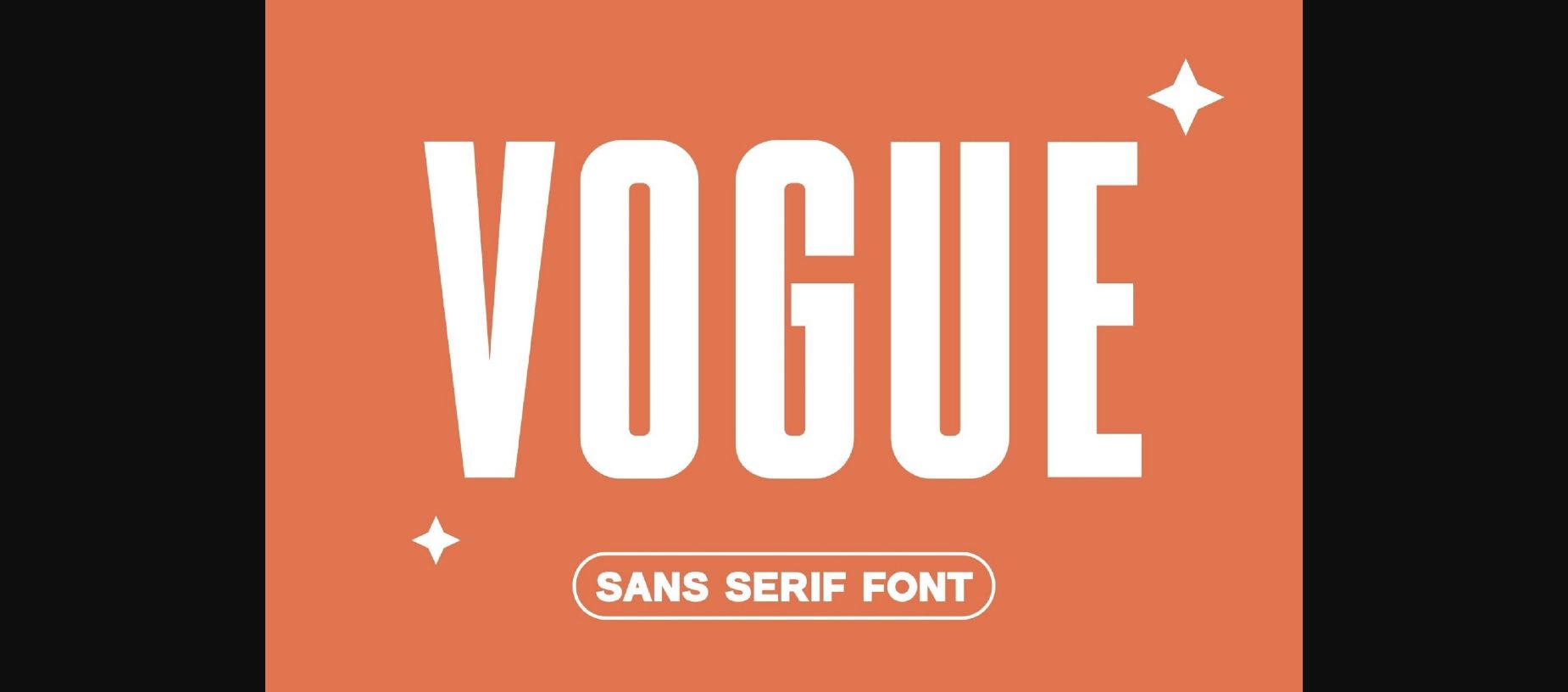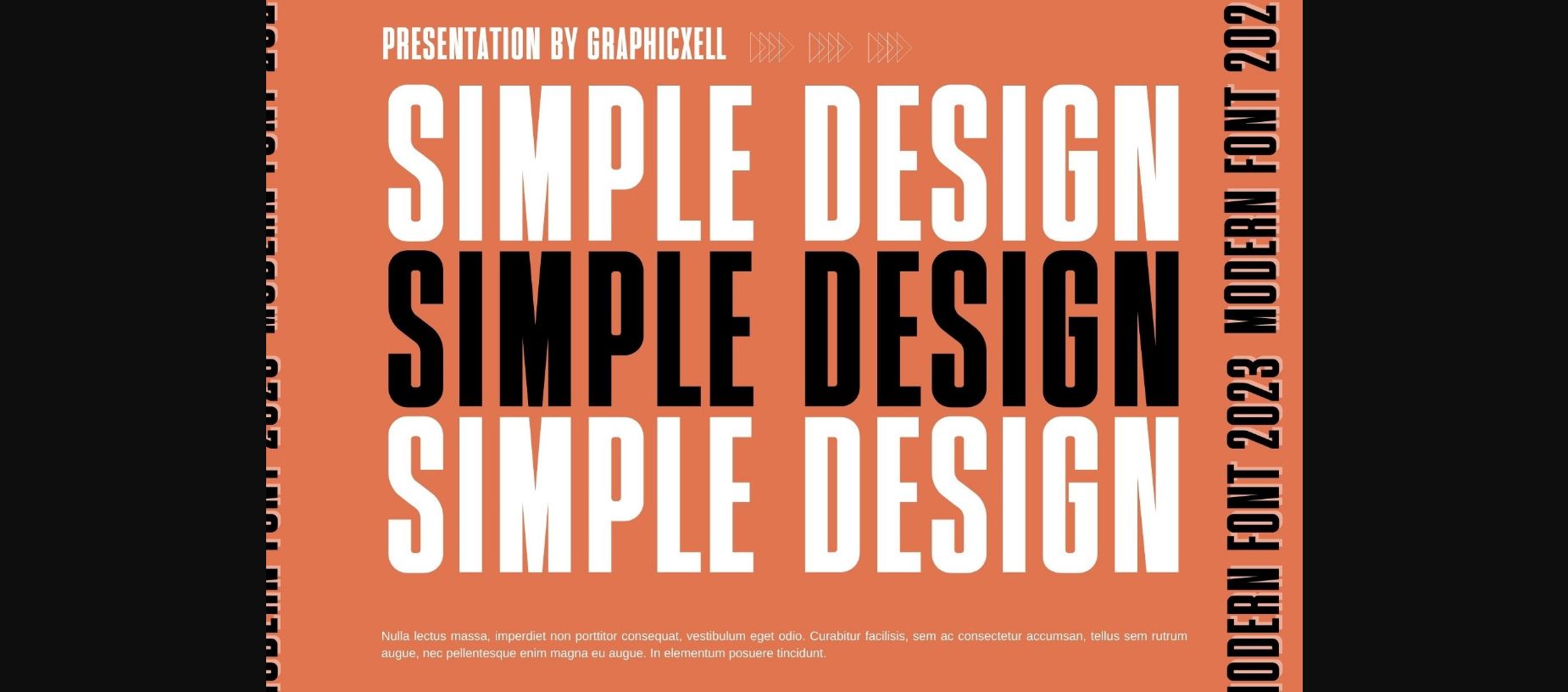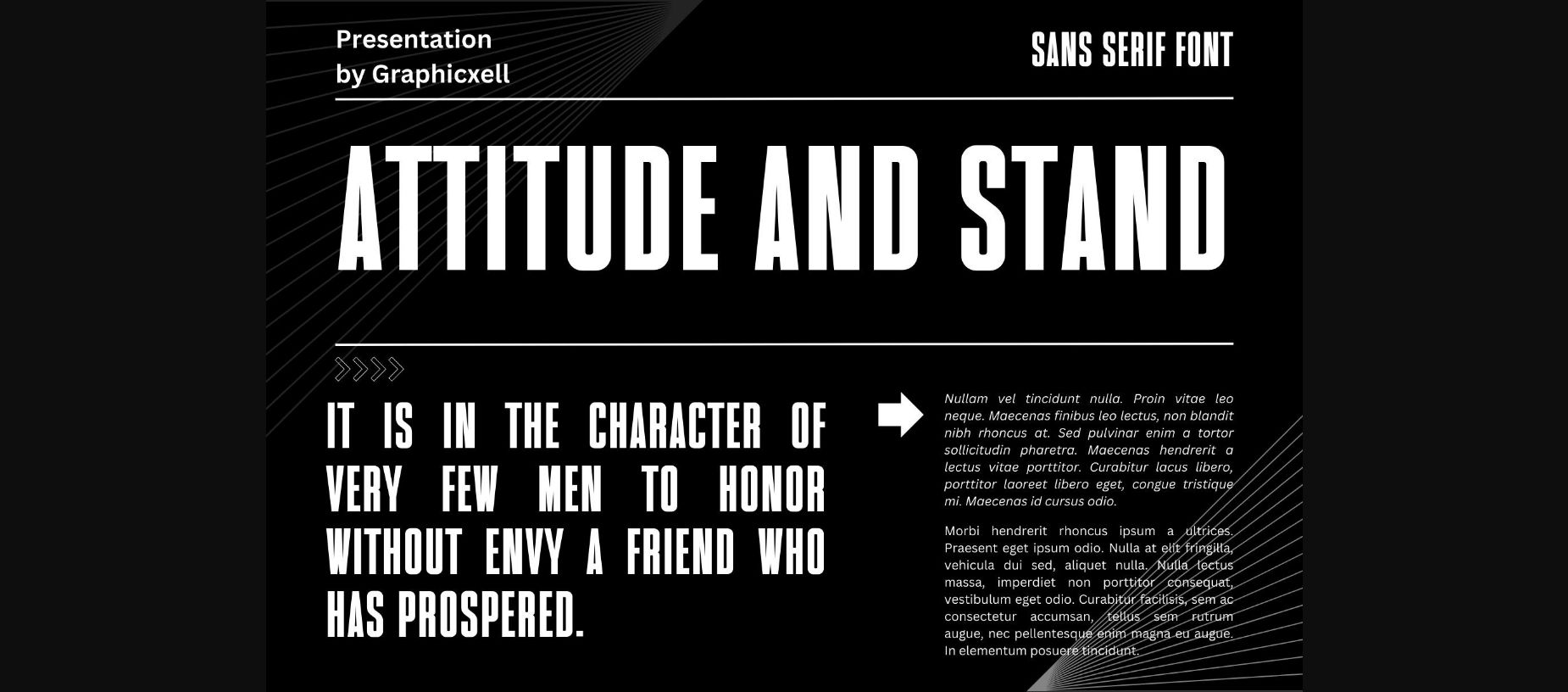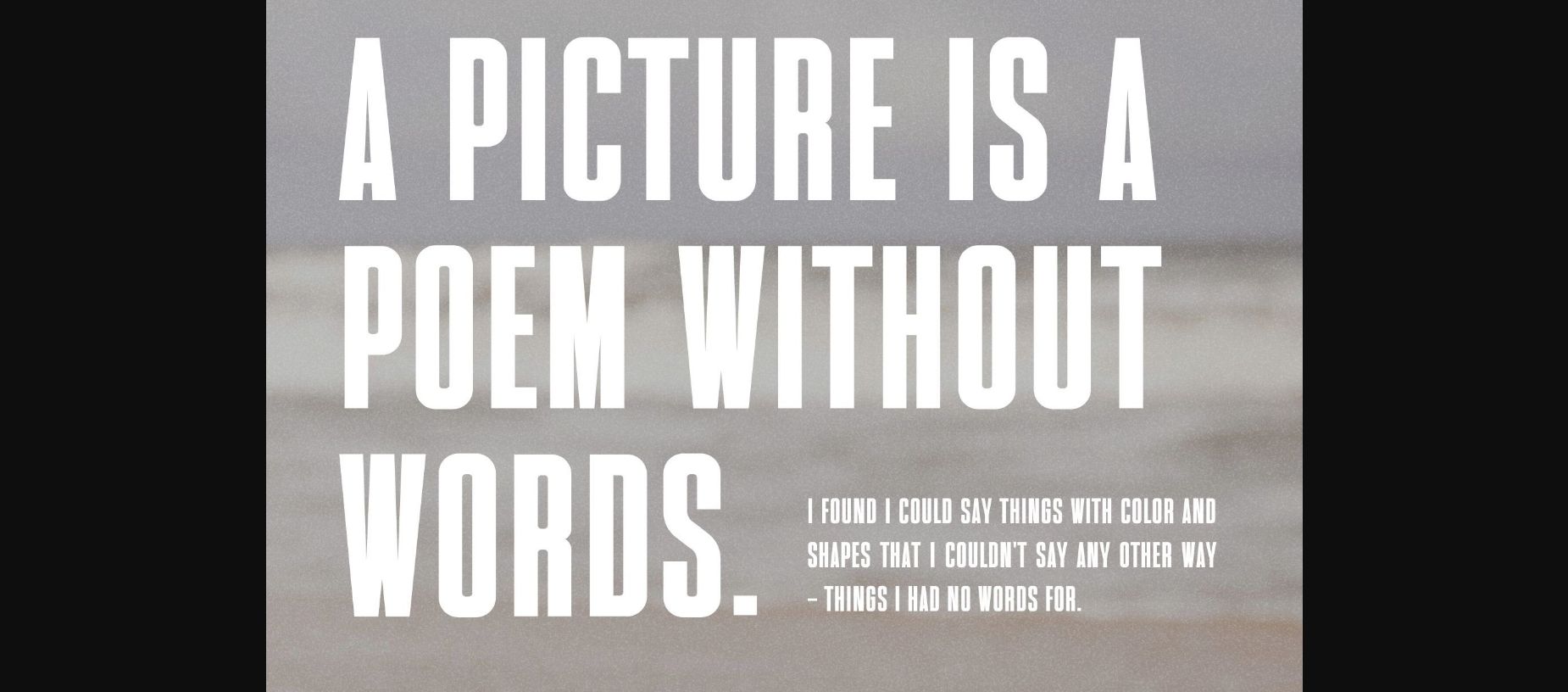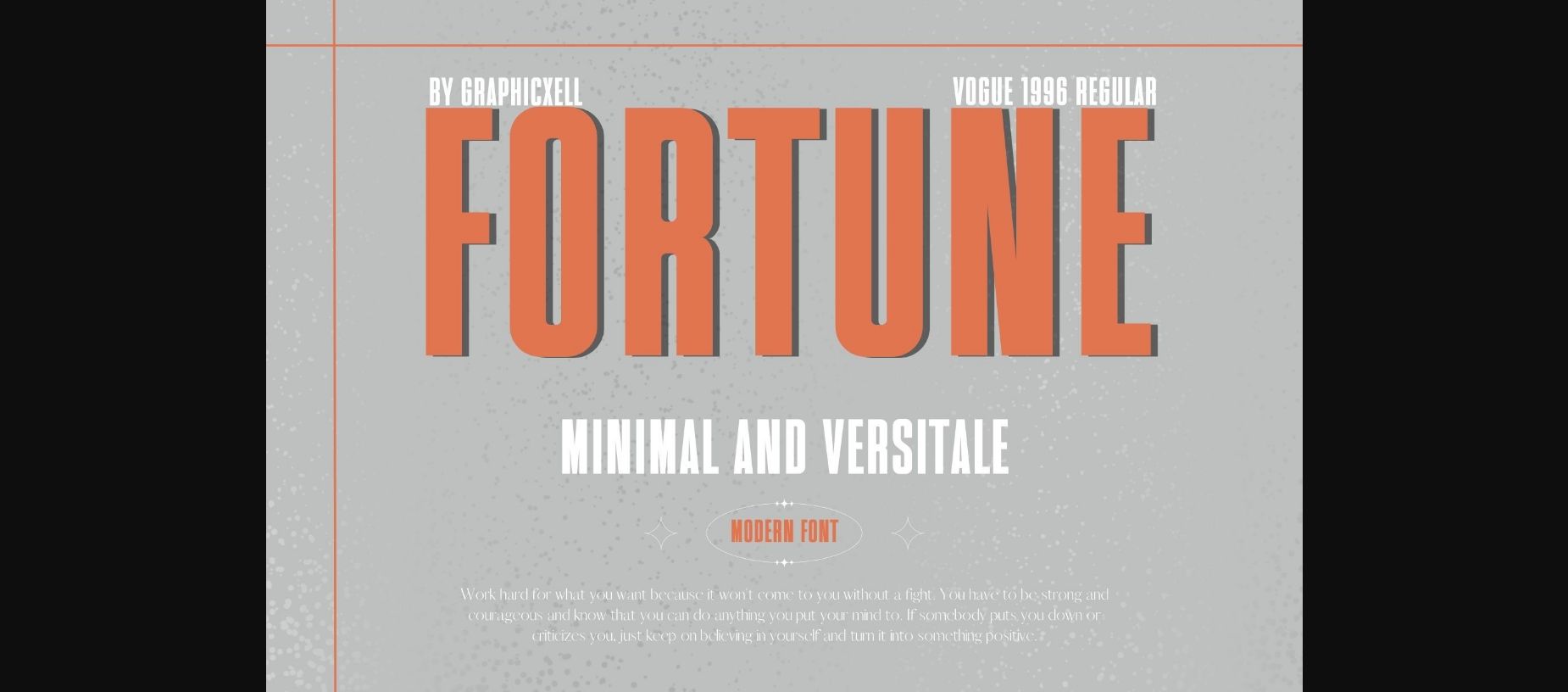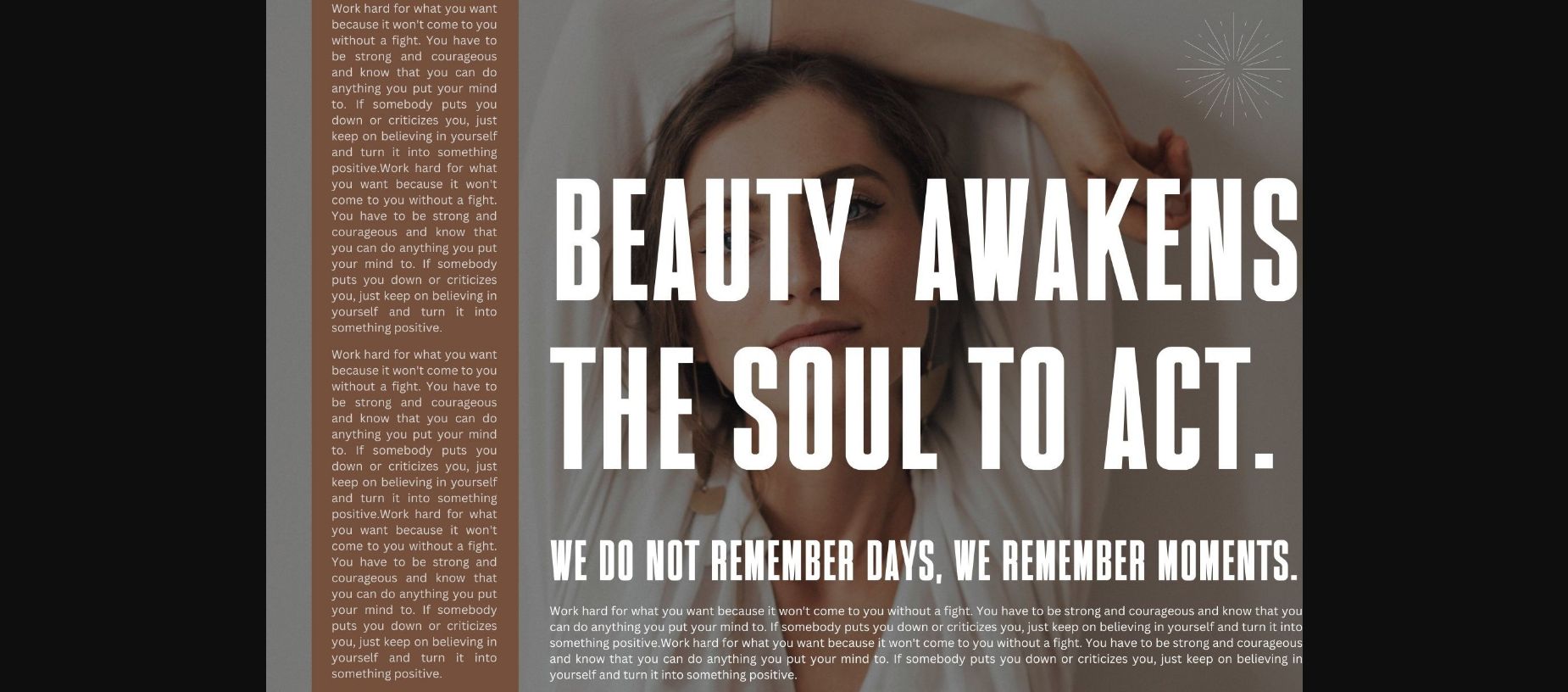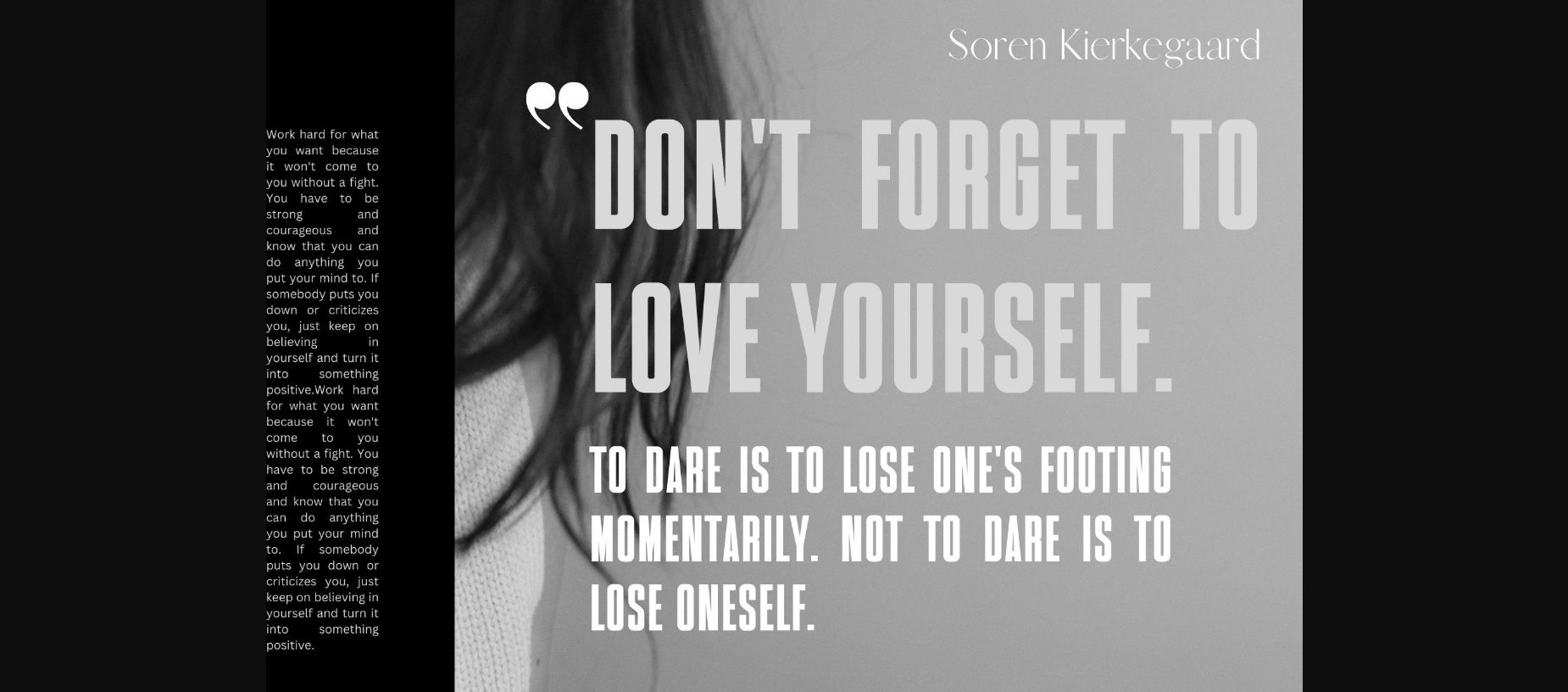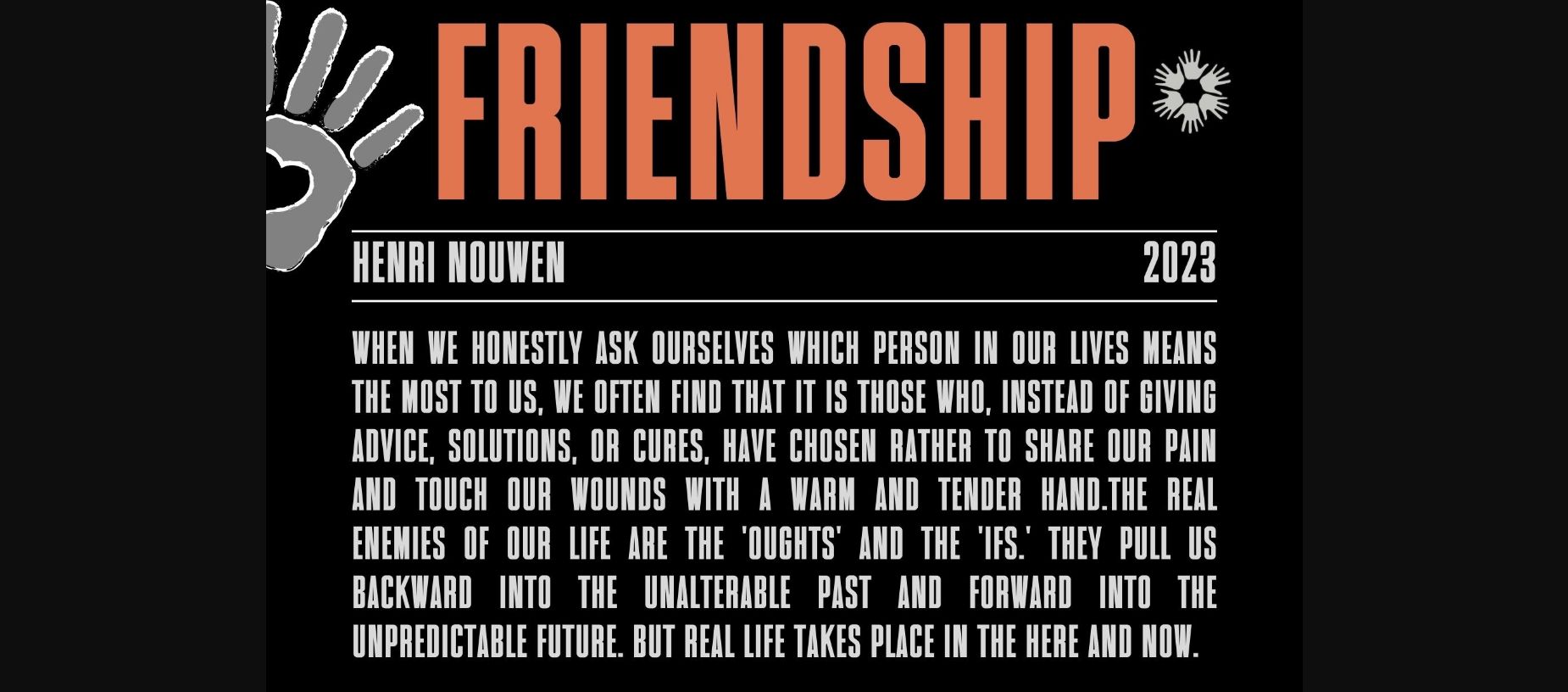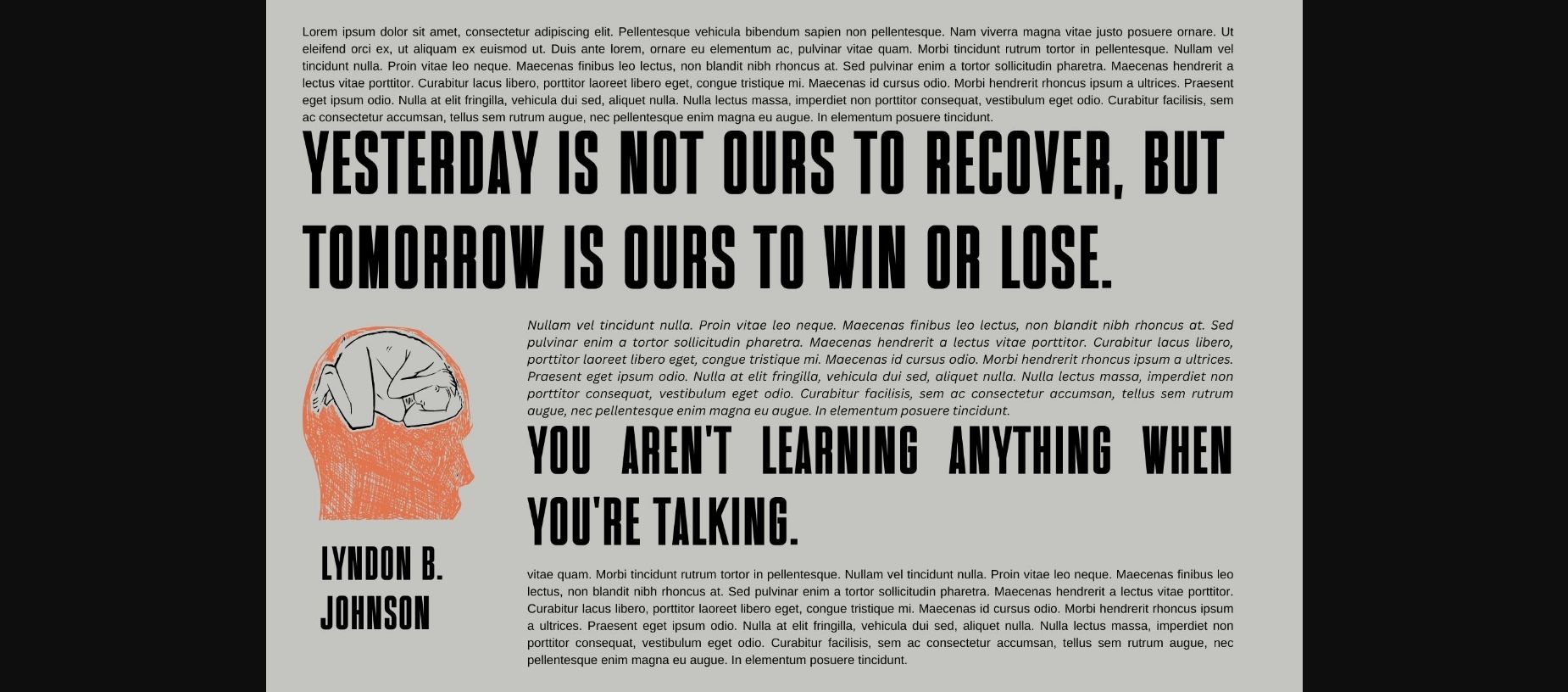
HomeSans Serif FontsVogue Font Sans Serif Fonts Vogue Font FacebookXPinterestWhatsApp 1 of 11 ... Vogue Font Poster 2... Vogue Font Poster 3... Vogue Font Poster 4... Vogue Font Poster 5... Vogue Font Poster 6... Vogue Font Poster 7... Vogue Font Poster 8... Vogue Font Poster 9... Vogue Font Poster 10... Vogue Font Poster 11... About Vogue Font Inspired by the famous minimalist logo, Vogue is perfect for the purposes of designing templates, brochures, videos, advertising branding, logos, invitation, layout design, elegant crafting, beauty design and so much more. DOWNLOAD NOW People also explored Light Font Astone Update Font Concre Chasing Snowflakes Font DT Augustina Slab 5 Subfamily Font Miss Starla Font Roland Font Valentines Rose Monogram Font Snow Candy Font 536 0 TagsVogueVogue Font Previous articleHugest FontNext articleMerci Font LEAVE A REPLY Cancel reply Comment: Please enter your comment! Name:* Please enter your name here Email:* You have entered an incorrect email address! Please enter your email address here Website: Save my name, email, and website in this browser for the next time I comment. Personal Use Free Tide Personal Use Free Read more about this font Sweet Someday Personal Use Free Read more about this font Autumn Flowers Font Personal Use Free Read more about this font Turpentine Personal Use Free Read more about this font BLOG Fonts That Capture the Spirit of New York City New York City is more than just a place—it’s an experience, a rhythm, a visual language... Best Fonts for YouTube Videos: Make Your Thumbnails Stand Out How to Cut Any Font on Cricut: Convert a Font to SVG (Free) The 10 Best Handwriting Fonts to Add Personality to Your Designs